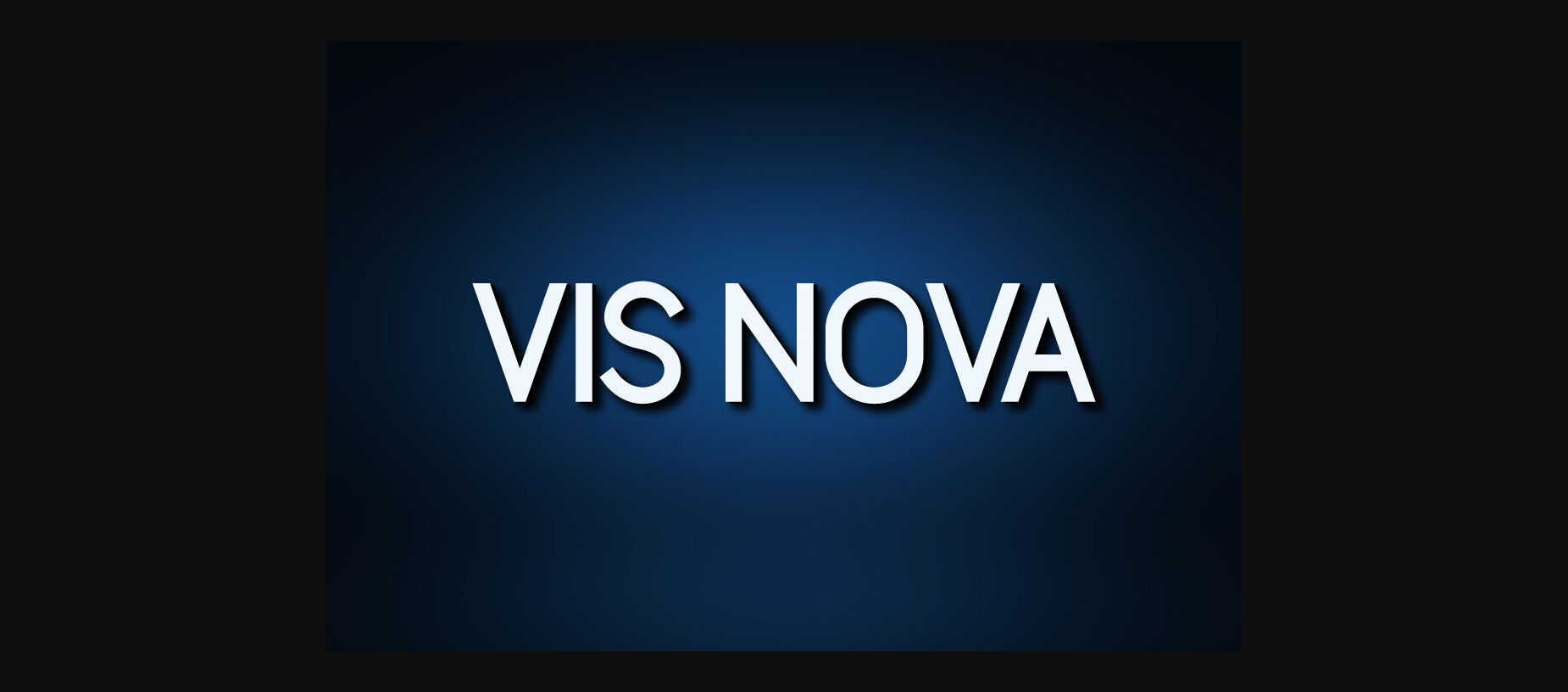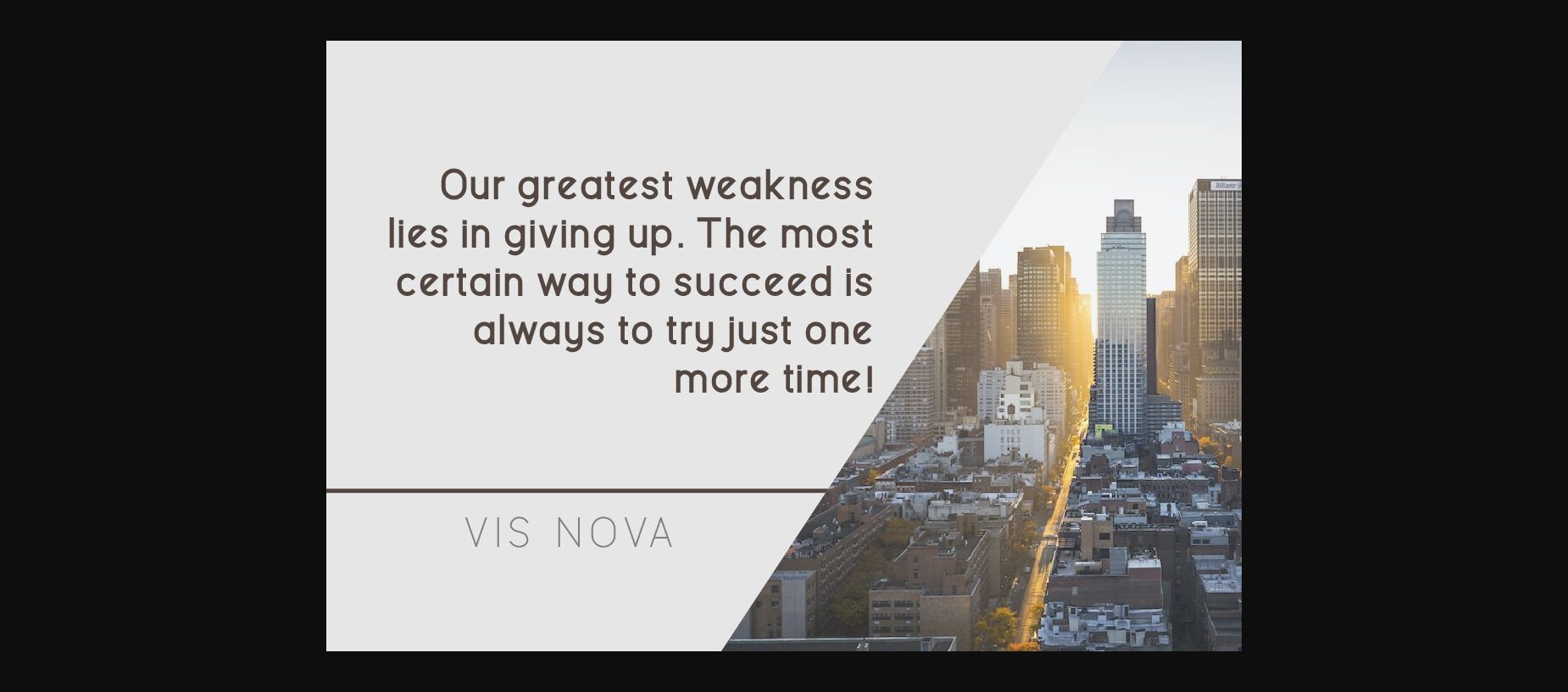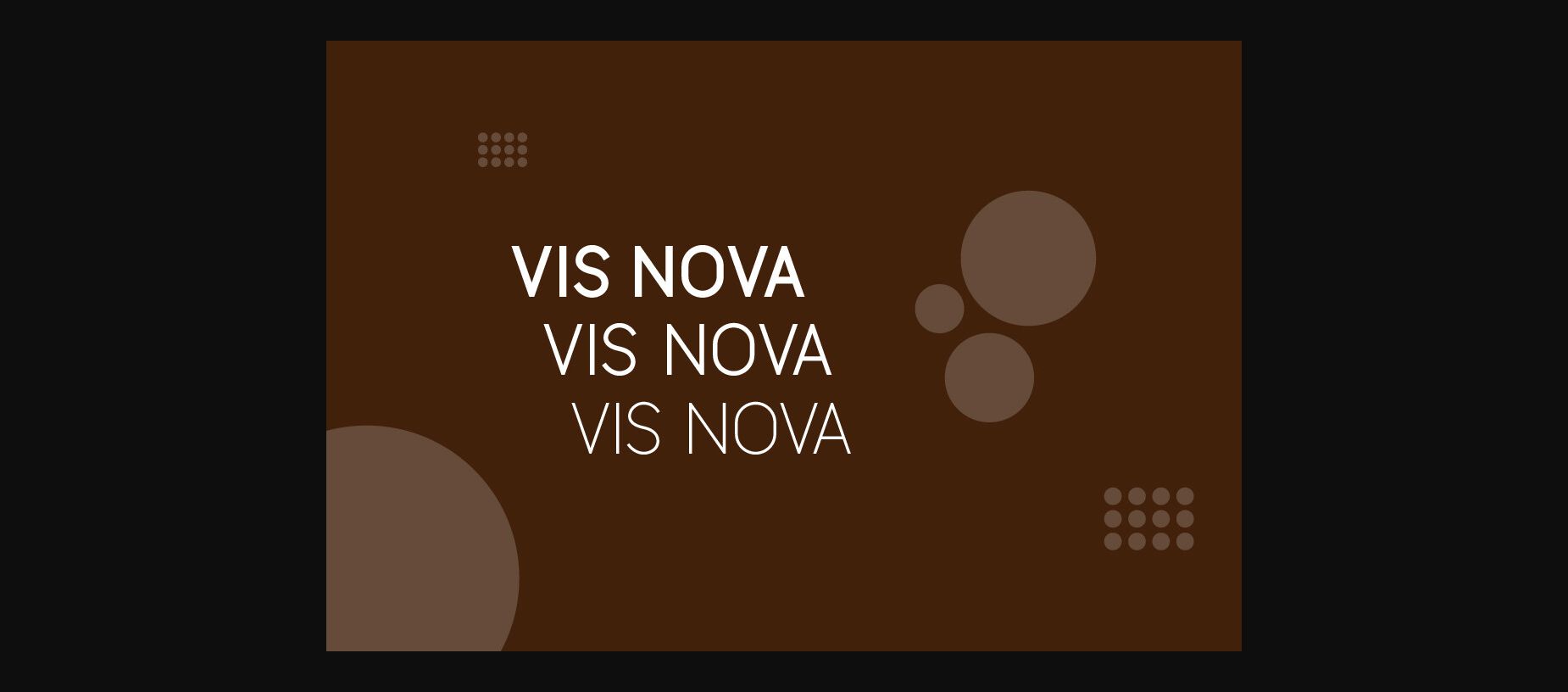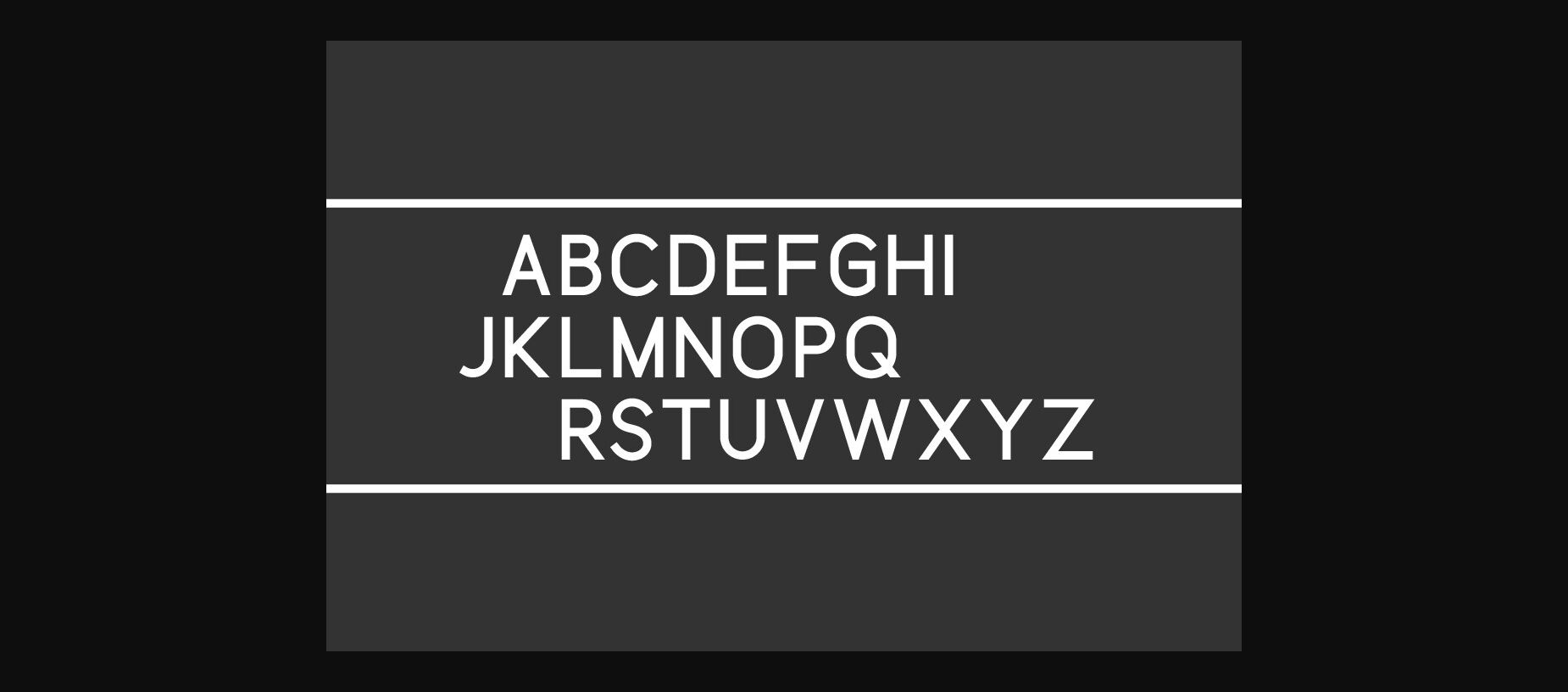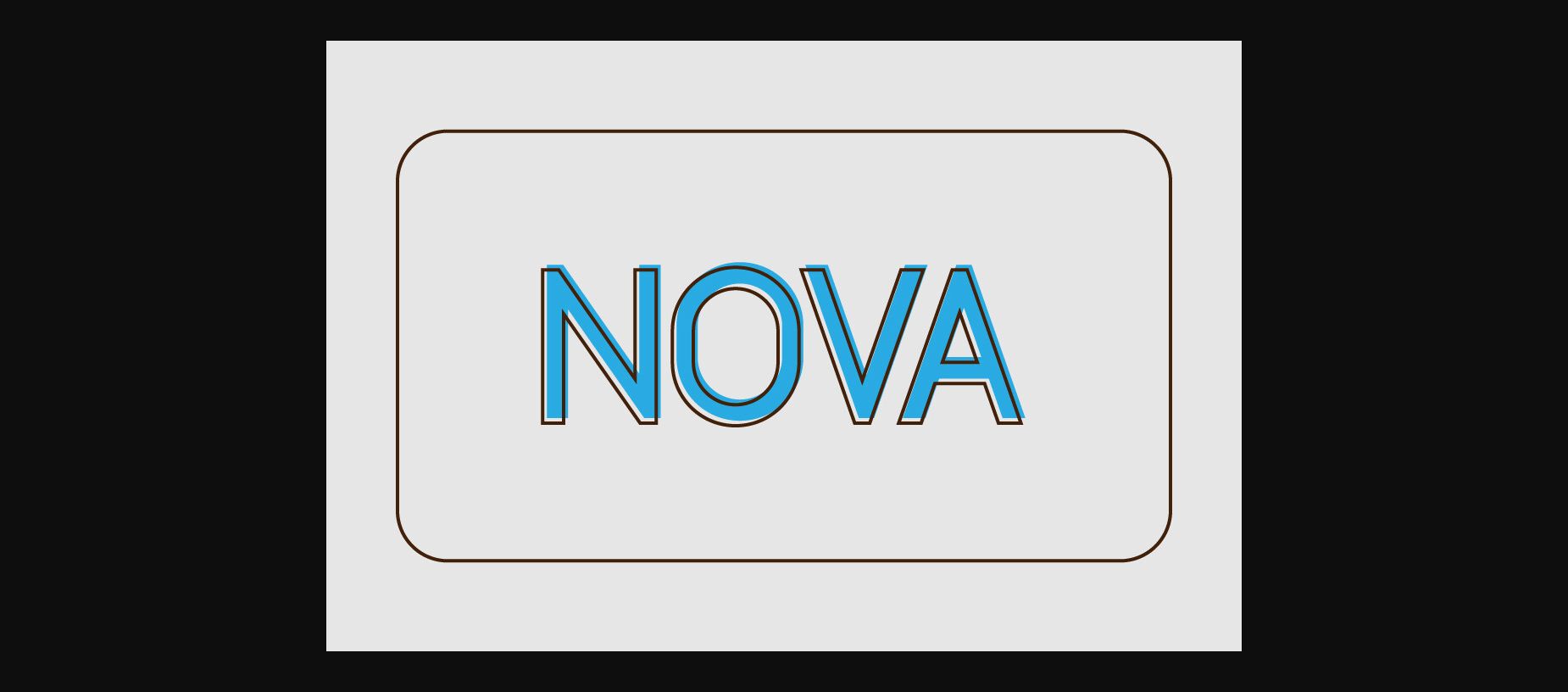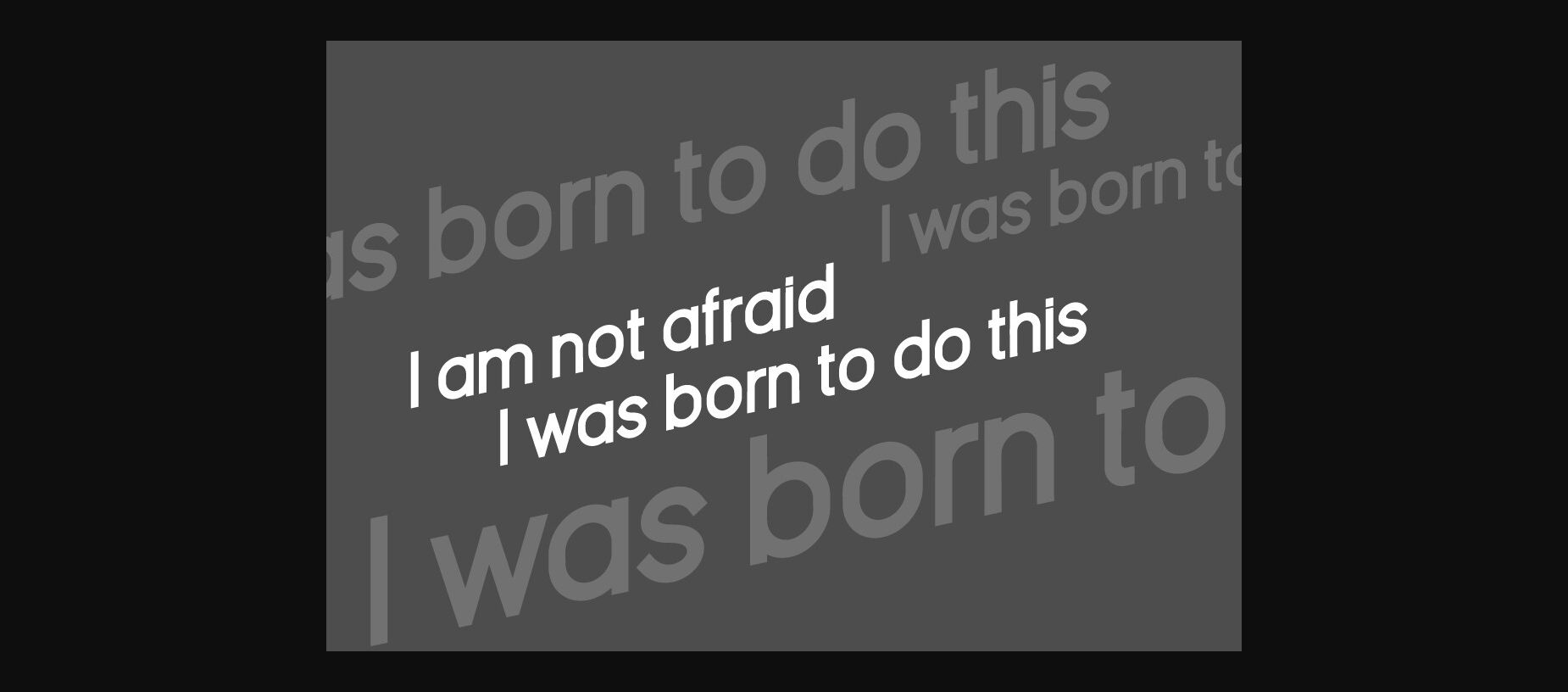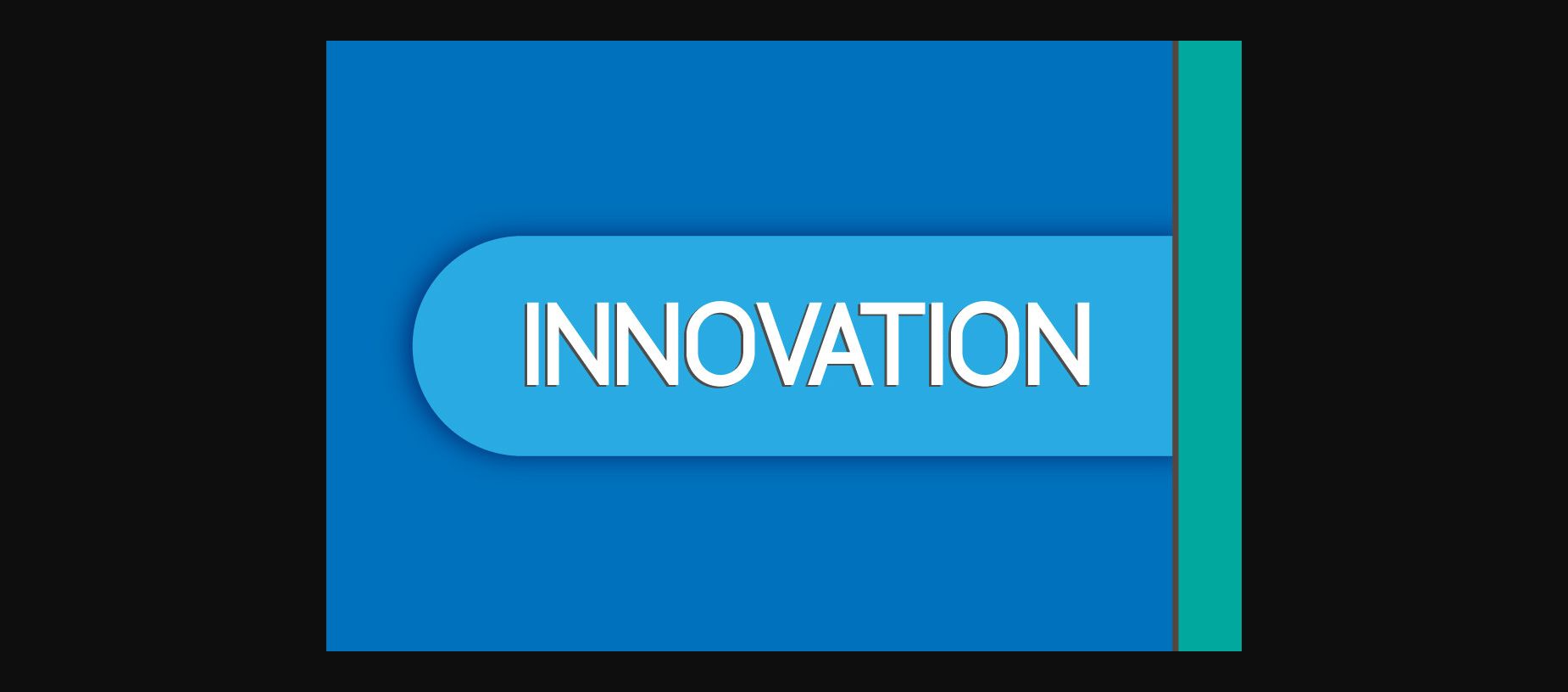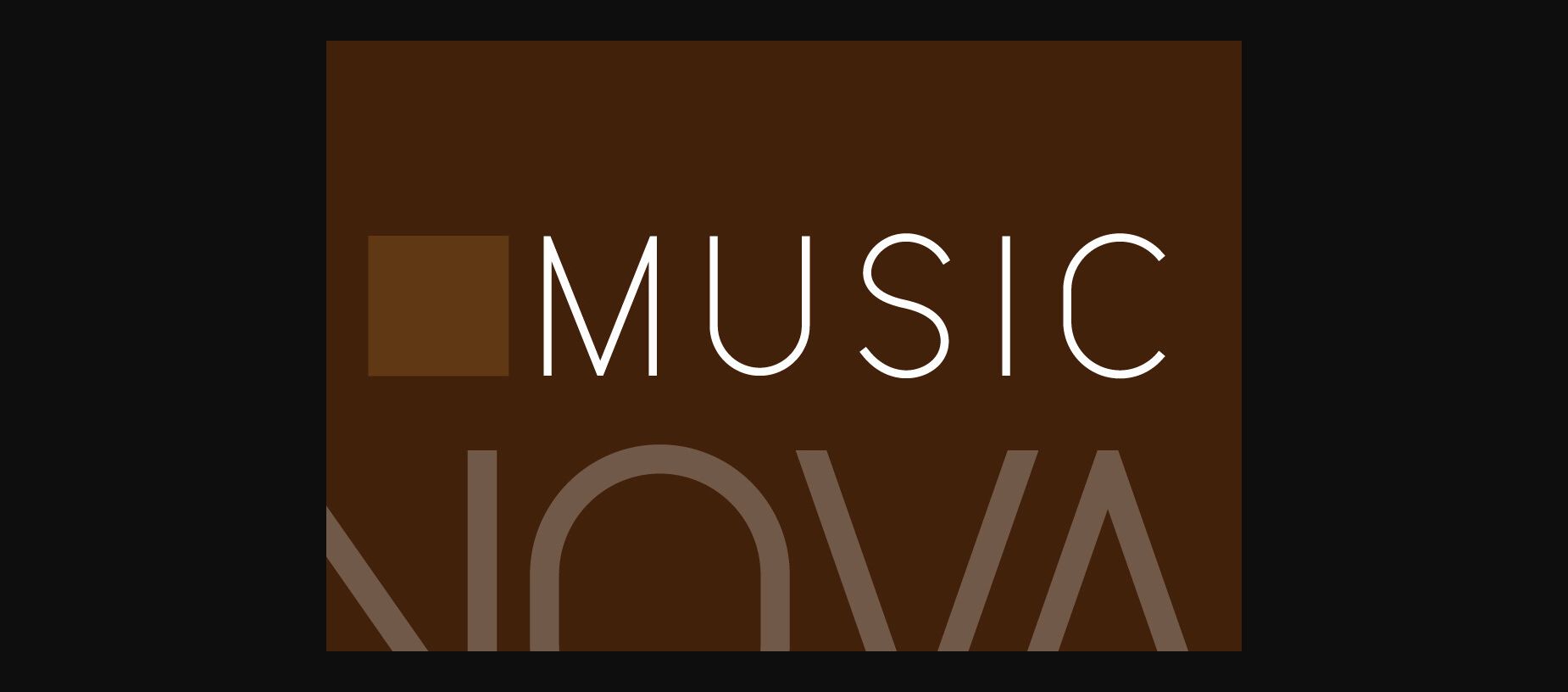
About Vis Nova Font
Vis Nova, embodying a straightforward aesthetic and industrial-quality reliability, is a sans serif font with a clean and modern appeal. Perfectly suited for a variety of applications, it effortlessly enhances titles, book covers, T-shirts, and digital interfaces, providing a professional and sleek touch to all your design projects.